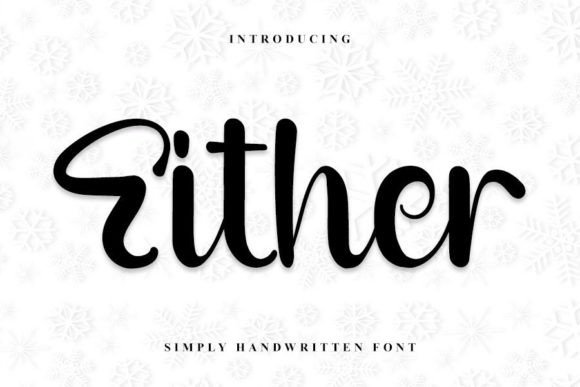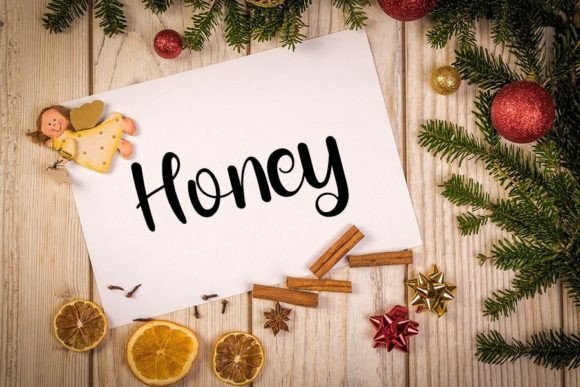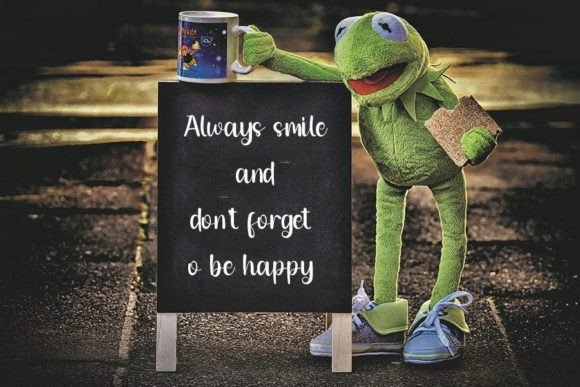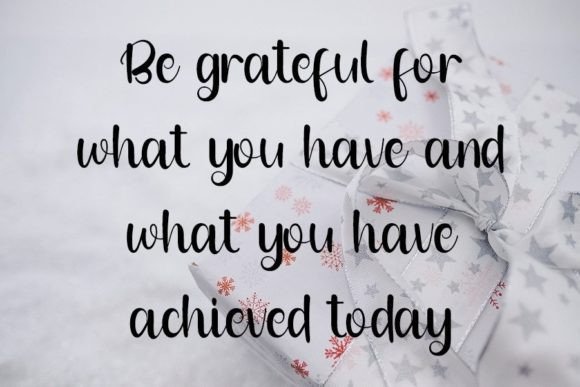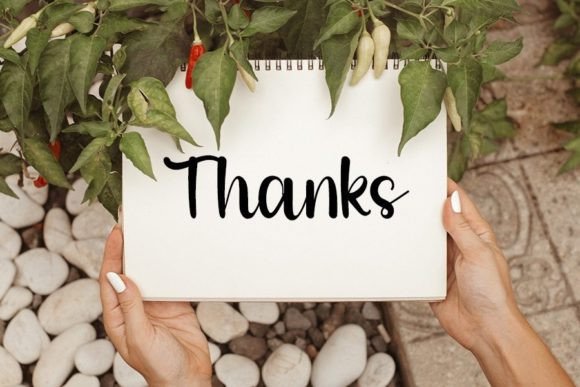
Either Font
“Either” is a neat and beautiful handwritten font that boasts an elegant touch, making it a perfect choice for your favorite projects. The font’s distinct and timeless style sets it apart, allowing you to fall in love with its aesthetic and use it to create spectacular designs.
The neatness of “Either” imparts a sense of precision, making it well-suited for a variety of design applications. Whether you’re working on branding, invitations, posters, or any creative project, this font adds a touch of elegance that elevates the overall visual appeal.
The handwritten quality of “Either” brings a personal and human touch to your designs, making them more relatable and engaging. Its timeless style ensures that it remains relevant across different design trends and projects, contributing to a lasting and classic aesthetic.
Imagine “Either” enhancing the branding of a luxury product, where its elegant touch communicates sophistication. Picture it on invitations, creating a memorable and stylish introduction to an event. Envision it on posters, adding a distinct and eye-catching element to your promotional materials.
In summary, “Either” is more than just a font; it’s a design asset that combines neatness, beauty, and elegance. Fall in love with its timeless style and let it be the key to creating spectacular and visually striking designs across a variety of creative projects.